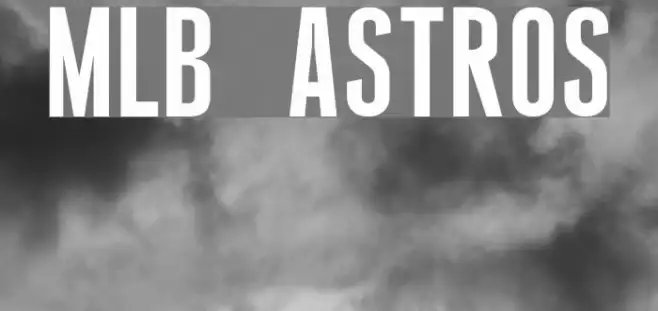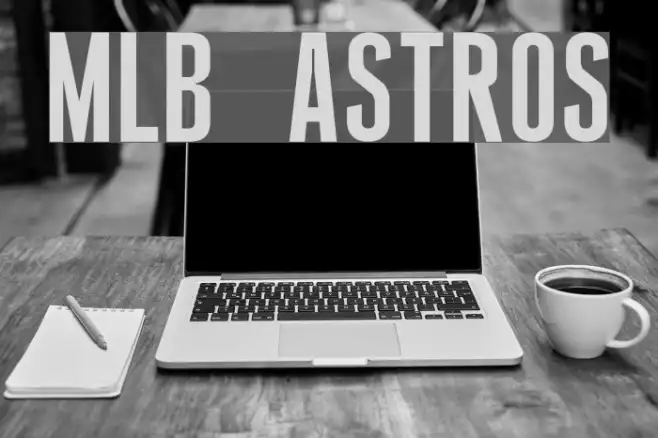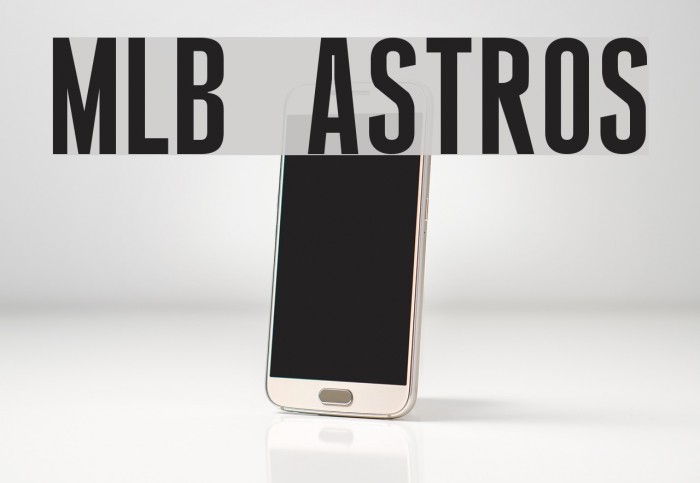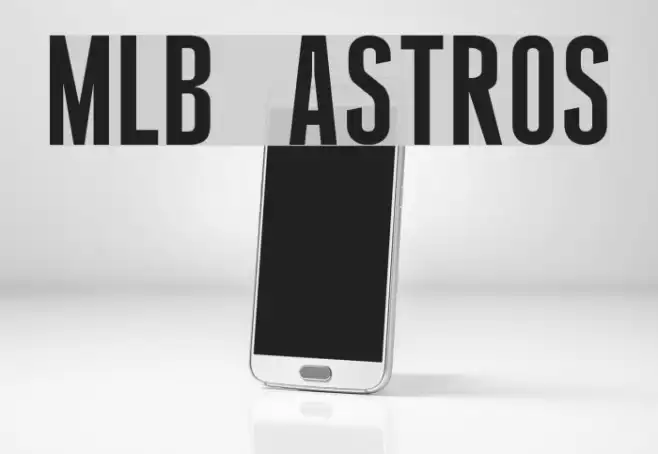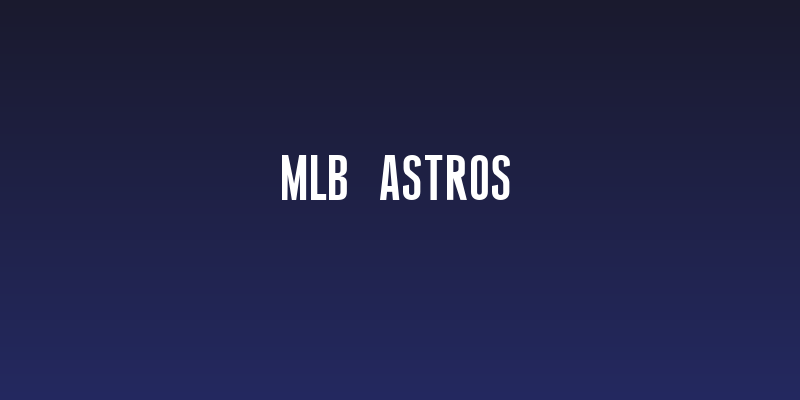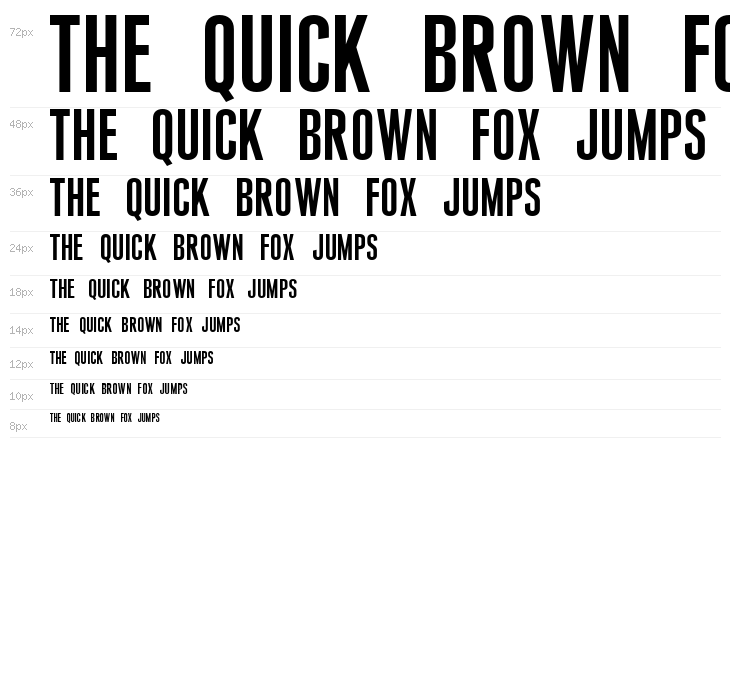
MLB Astros Font
MLB Astros Description
This font features a bold and impactful design, characterized by its tall, condensed letterforms and strong vertical emphasis. The uppercase letters are uniform in height, creating a cohesive and structured appearance. The numerals are similarly bold, maintaining the font's overall assertive style. The absence of serifs and the uniform stroke width contribute to a clean and modern aesthetic, making it suitable for attention-grabbing headlines and branding. The font's simplicity and clarity ensure readability while conveying a sense of strength and confidence.